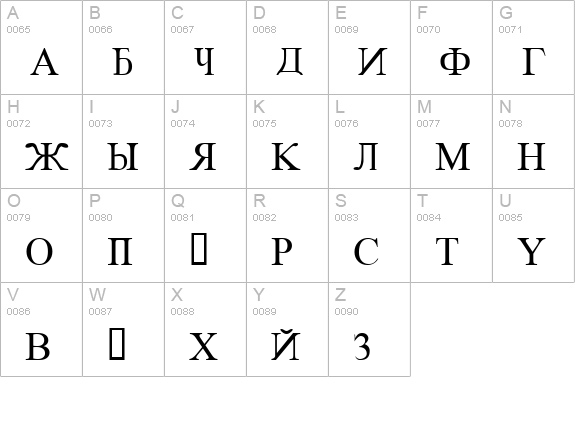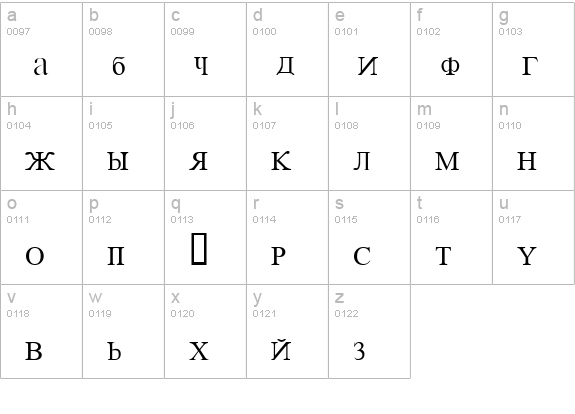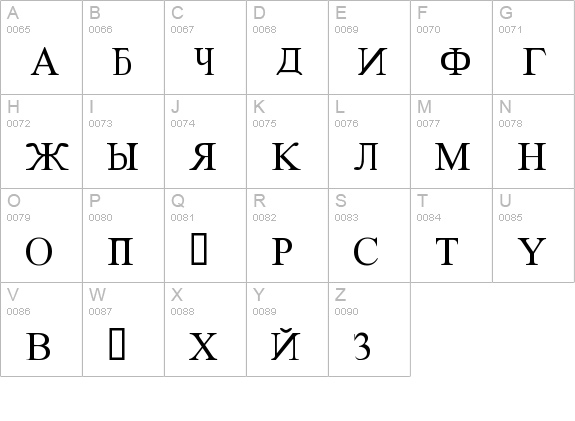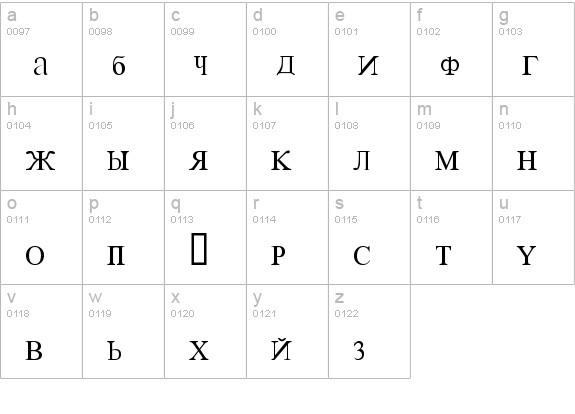
The Russian font is a beautifully crafted typeface that exudes elegance and sophistication. With its intricate strokes and captivating design, this font is perfect for adding a touch of class to any project. Whether you are working on a branding design, a poster, or a website, the Russian font will surely make a lasting impression. The best part? It's completely free to download at FontsMarket.com! Yes, you read that right. You can easily access this stunning font without spending a dime. So why wait? Add the Russian font to your collection today and elevate your designs to the next level.